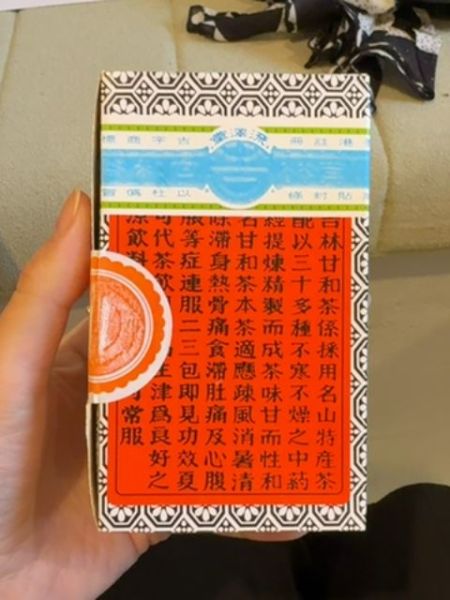
Luk On Tea
Traditional herbal tea known for its medicinal properties, often used to aid digestion and improve overall well-being.
The typography uses traditional Asian characters that convey cultural heritage and authenticity. The font style is formal and angular, reflecting traditional calligraphic influences. The combination of colors and text create a visually engaging and authentic aesthetic.
The packaging features a vibrant red panel filled with traditional characters, bordered by a striking black-and-white geometric pattern. This bold presentation is enriched with an ornate, round orange and white seal adding to its cultural authenticity.
- It contains a blend of natural herbs.
- It is traditionally consumed for digestive health.
- The tea has a history of being used in herbal medicine.